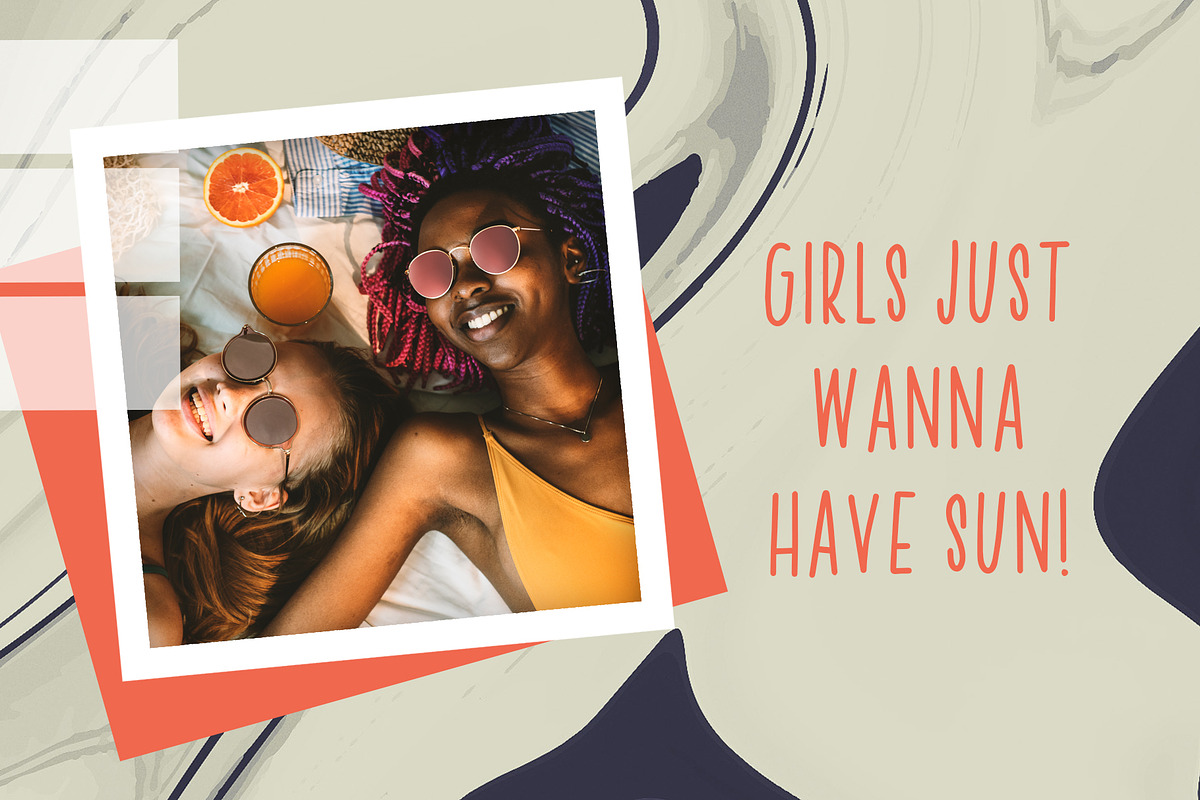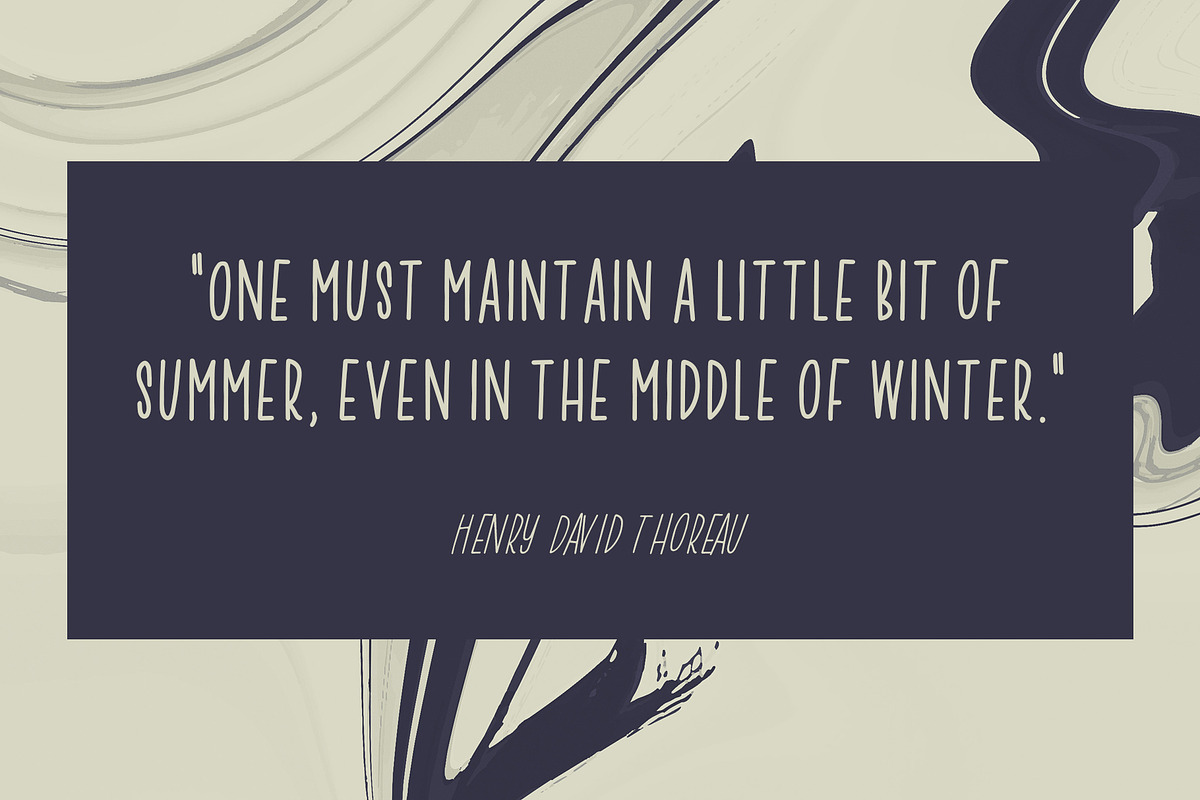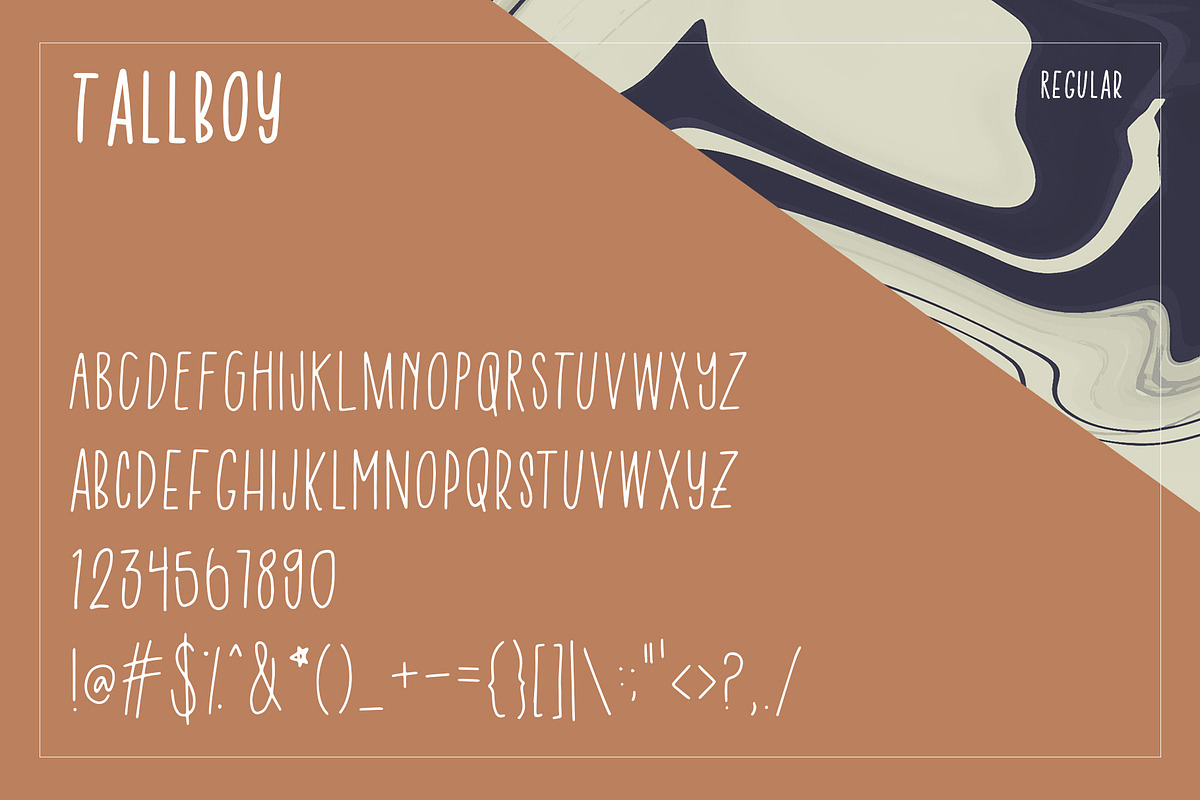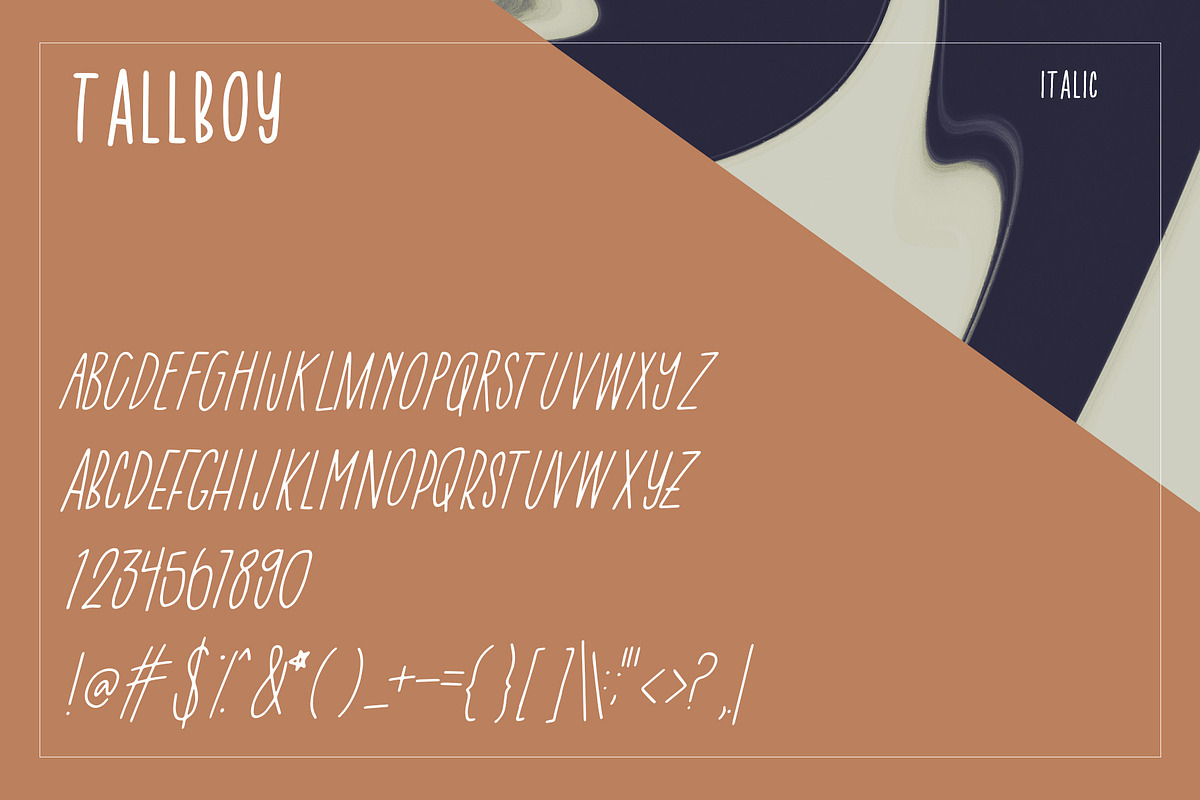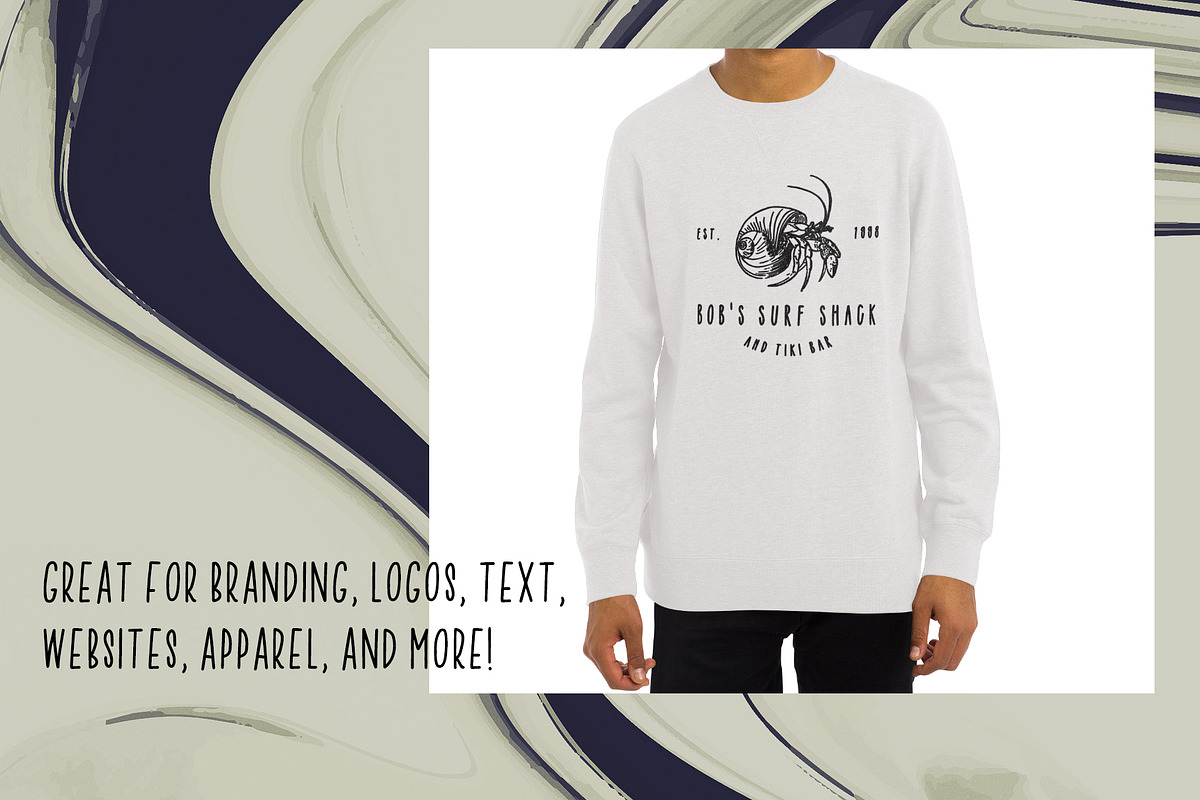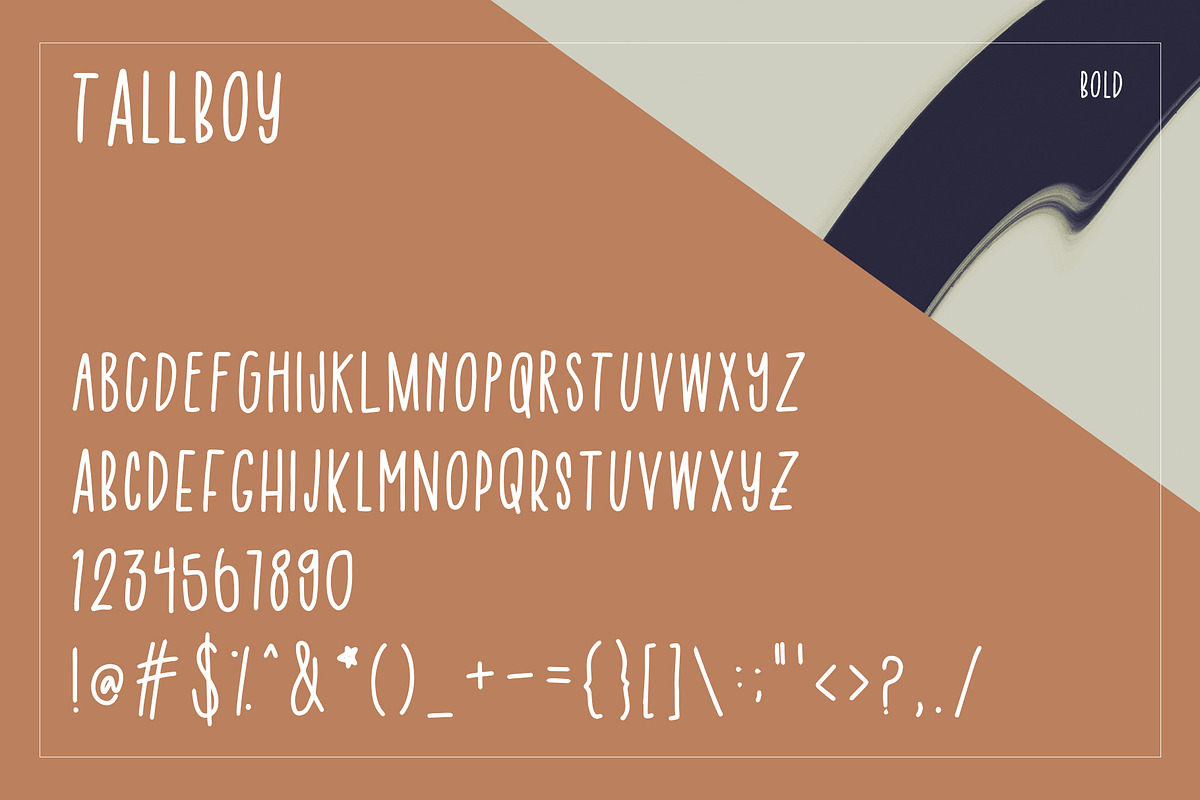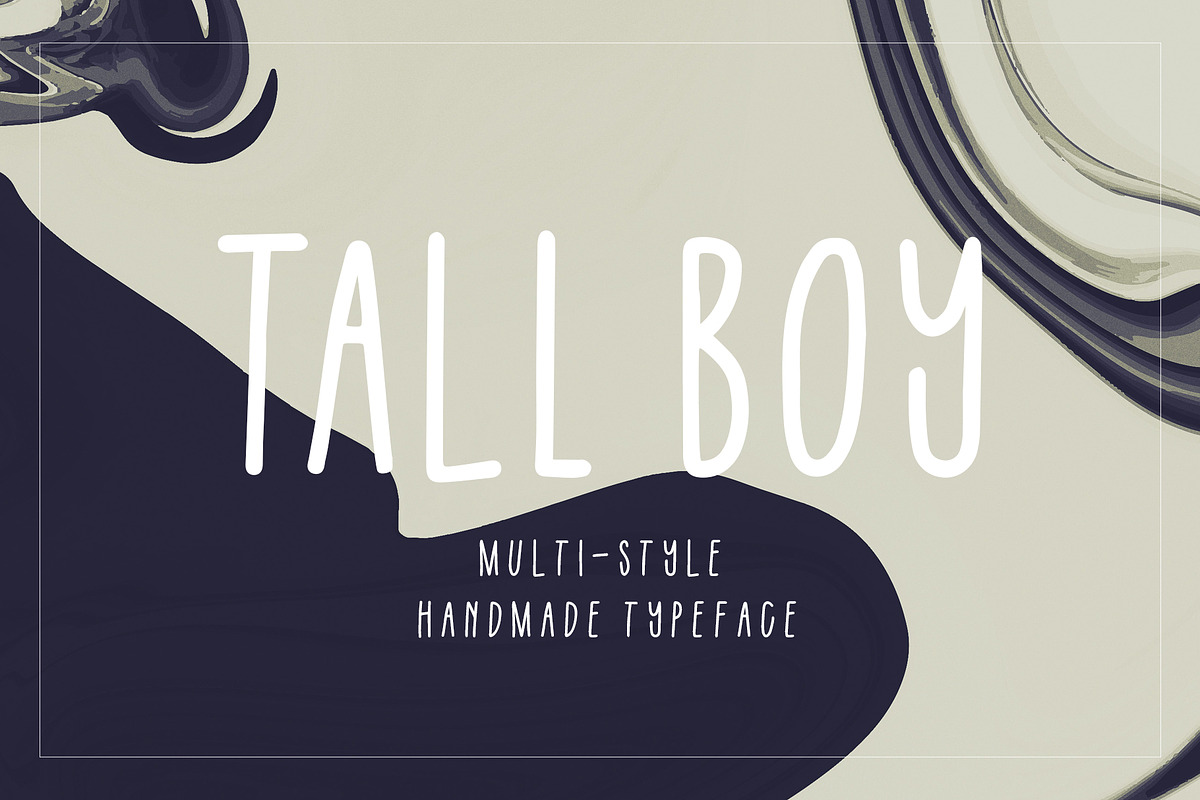
Tall Boy | Handwriting Font
Tall boy is a playful handmade font to elevate your designs, logos, posters, apparel, and products. This all-caps family includes a "high font" and a "low font" in regular, italic, and bold. This font also has punctuation and numbers!
Looks good both big and small!
- This all-caps family includes a "high font" and a "low font" in regular, italic, and bold.
- This font also has punctuation and numbers!
- Tall Boy Regular
- Tall Boy Italic
- Tall Boy Bold